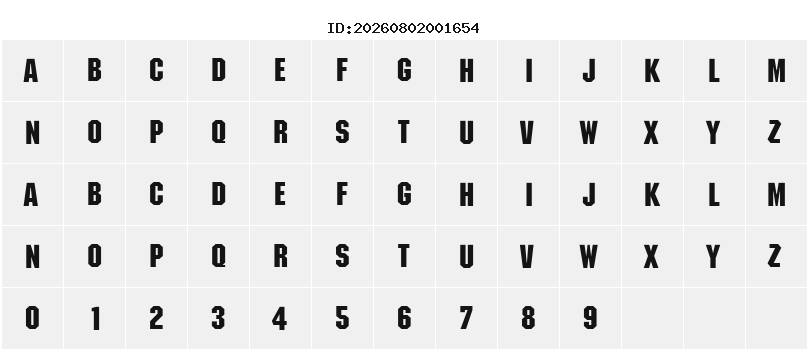
• Font Name: Meat Depreciation Aristocracy
• Description: Well, I have no idea what this name stands for!
About Meat Depreciation Aristocracy.ttf
Meat Depreciation Aristocracy.ttf is a modern, elegant sans-serif font designed for ultimate readability and visual harmony. Perfect for branding, headlines, web design, and print materials.